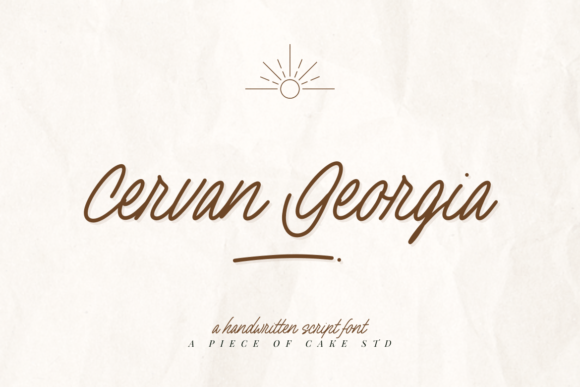
Unleashing Creativity: The Power of Cervan Georgia Font
Have you ever stared at a blank page, longing to bring your creative vision to life, but struggling to find the perfect words to express yourself? That’s when the magic happens, and the right font can make all the difference. For designers and creatives, the search for the perfect font can be a daunting task, but what if I told you that there’s a font that can elevate your designs and make them truly unforgettable?
Meet Cervan Georgia Font, a stunning handwritten script font that exudes simplicity and elegance. Whether you’re designing a social media post, creating a beautiful invitation, or crafting a unique DIY project, this font is sure to turn your creative idea into a masterpiece. With its PUA encoding, you’ll have access to all the glyphs and swashes, making it a valuable asset for designers who crave versatility and precision.
Cervan Georgia Font Key Features
- Unique Characteristics: Designed with a classic, elegant look, Cervan Georgia Font features a unique combination of Georgian and European typography, making it ideal for use in formal and professional settings
Cervan Georgia Font Review
Overall, I’m quite impressed with the Cervan Georgia Font. It’s a beautiful, elegant font that would be perfect for a wide range of applications, from wedding invitations to luxury brand logos. ✨ Here are a few things that I think really work well:
- Highly legible: The font is incredibly easy to read, even at smaller sizes, making it perfect for body text.
- Classic feel: The Cervan Georgia Font has a timeless, classic feel that will never go out of style.
- Wide language support: The font supports a wide range of languages, making it a great choice for international brands.
However, there are a few limitations that I think are worth noting: ⚠️
- Limited expressiveness: While the font is beautiful, it’s not particularly expressive or emotive, which may limit its use in certain applications.
- No bold weights: The font is available in a limited range of weights, which may make it less versatile than some other fonts.
Overall, I think the Cervan Georgia Font is a solid choice for any project that requires a high level of elegance and sophistication. It’s a great addition to any designer’s toolkit, and I would definitely recommend it to others.
Tips for Getting the Most Out of Cervan Georgia Font
Use Cervan Georgia font for headings and titles to create a clear and professional look.
Pair Cervan Georgia font with a sans-serif font for body text to create a balanced design.
Experiment with different font sizes and colors to emphasize important information.
Alternatives to Cervan Georgia Font for Designers
Merrriweather is a classic serif font that is highly legible and elegant. It’s perfect for body text, especially in longer documents or articles where readability is crucial. It’s similar to Cervan Georgia Font in its serif style, but has a more traditional feel to it.
When to use: For body text in documents, articles, and websites where readability is important.
Comparison: Merriweather is more traditional and classic in feel compared to Cervan Georgia Font, which has a more modern touch.
Lato is a sans-serif font that is clean, modern, and highly legible. It’s perfect for headlines, titles, and short paragraphs where a clean and minimalistic look is desired. It’s quite different from Cervan Georgia Font in style, but can be used in conjunction with it for a nice contrast.